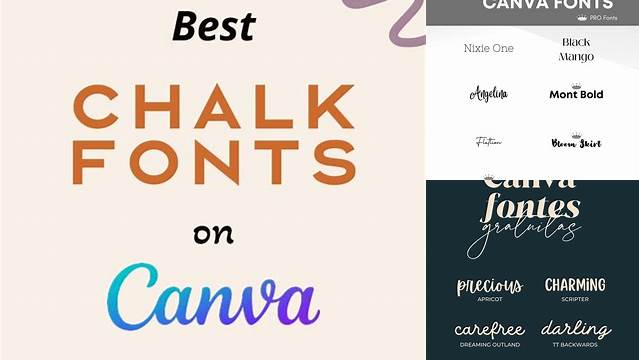
Canva Fonts Free: Design Like A Pro Without Spending A Dime
Hey guys! Are you looking to elevate your design game without breaking the bank? Well, you're in luck! Let's dive into the world of free fonts on Canva and discover how you can create visually stunning projects that capture attention. Whether you're a seasoned designer or just starting out, understanding the power of typography in Canva is essential. Typography isn't just about choosing a font; it's about crafting a visual message that resonates with your audience. The right font can evoke emotions, establish a brand identity, and make your content more readable and engaging. In this article, we will explore the treasure trove of free fonts available on Canva, understand how to effectively use them, and provide tips to make your designs stand out.
Exploring the Canva Free Fonts Library
Canva offers an extensive library of free fonts, catering to a wide range of design needs. From elegant serif fonts perfect for formal documents to playful sans-serif fonts ideal for social media graphics, there's something for everyone. Navigating this vast collection can seem daunting, but don't worry, we've got you covered.
Serif fonts are characterized by small decorative strokes (serifs) at the end of each character. These fonts often convey a sense of tradition, authority, and elegance. Some popular free serif fonts on Canva include:
- Lora: A well-balanced serif font that is highly readable, making it perfect for body text. Its contemporary feel adds a touch of sophistication to any design.
- Playfair Display: An excellent choice for headings and titles, Playfair Display exudes elegance and grandeur. Its high contrast and delicate serifs make it ideal for creating eye-catching headlines.
- Arvo: A slab-serif font that is both modern and sturdy. Arvo works well in both headings and body text, offering a versatile option for various design projects.
Sans-serif fonts lack the decorative strokes found in serif fonts, giving them a cleaner, more modern appearance. They are often associated with simplicity, clarity, and contemporary design. Here are some standout free sans-serif fonts on Canva:
- Roboto: One of the most popular sans-serif fonts, Roboto offers excellent readability and a clean, modern aesthetic. It's a versatile choice suitable for both headings and body text.
- Open Sans: Designed with readability in mind, Open Sans is a friendly and neutral font that works well in a variety of contexts. Its open forms and clean lines make it a solid choice for digital and print designs.
- Lato: A stylish sans-serif font that combines warmth and clarity. Lato's semi-rounded details provide a unique personality, making it a great option for adding a touch of modern flair to your designs.
Script and Display Fonts
For designs that require a touch of personality and flair, script and display fonts are your go-to options. These fonts can add character, emotion, and a unique visual appeal to your projects. Here are a few free script and display fonts available on Canva:
- Pacifico: A flowing cursive font that evokes a sense of fun and relaxation. Pacifico is perfect for creating eye-catching logos, headings, and social media graphics.
- Great Vibes: As the name suggests, Great Vibes exudes elegance and sophistication. This beautiful script font is ideal for wedding invitations, greeting cards, and other special occasion designs.
- Bangers: A bold and impactful display font that commands attention. Bangers is perfect for posters, banners, and other designs where you want to make a statement.
How to Use Fonts Effectively in Canva
Choosing the right font is just the first step. Knowing how to use fonts effectively in Canva is crucial for creating visually appealing and impactful designs. Here are some tips to help you master typography in Canva:
Font Pairing
Font pairing is the art of combining two or more fonts that complement each other. A well-chosen font pairing can enhance readability, create visual interest, and elevate the overall design. Here are some guidelines for effective font pairing:
- Contrast: Combine fonts with contrasting styles. For example, pair a serif font with a sans-serif font to create a visual hierarchy.
- Hierarchy: Use different font sizes and weights to establish a clear visual hierarchy. The most important information should be the most prominent.
- Readability: Ensure that your font pairings are easy to read. Avoid using fonts that are too similar or that clash with each other.
Font Size and Spacing
Font size and spacing play a significant role in readability and visual appeal. Here are some tips for optimizing font size and spacing in Canva:
- Headings: Use larger font sizes for headings to make them stand out. A good rule of thumb is to use a font size that is at least twice the size of the body text.
- Body Text: Choose a font size that is comfortable to read. A font size of 12-14 points is generally recommended for body text.
- Line Height: Adjust the line height to improve readability. A line height that is too tight can make the text feel cramped, while a line height that is too loose can make it difficult to follow.
So there you have it! With Canva's vast library of free fonts and these helpful tips, you're well-equipped to create stunning designs that capture attention and communicate your message effectively. Remember, typography is an art form, so don't be afraid to experiment and explore different font combinations to find what works best for you. Happy designing, and may your creations always be visually captivating!